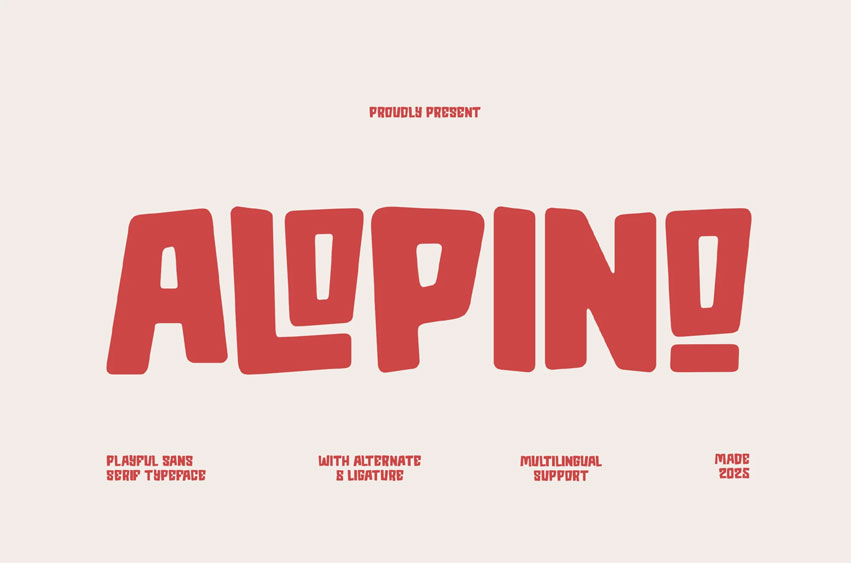
Alopino Font is a bold and playful sans-serif crafted to turn attention into action. With strong, geometric letterforms softened by friendly curves, Alopino balances professionalism and personality: it reads powerfully at large sizes and keeps its charm in short copy. Use it for brand identities, posters, packaging, kids’ products, social media graphics, web headlines, and any creative project that needs a joyful but modern voice.
• Uppercase alphabet A-Z
• Lowercase alphabet a-z
• Numbers 0-9
• Some punctuation
• Alternates & Ligatures